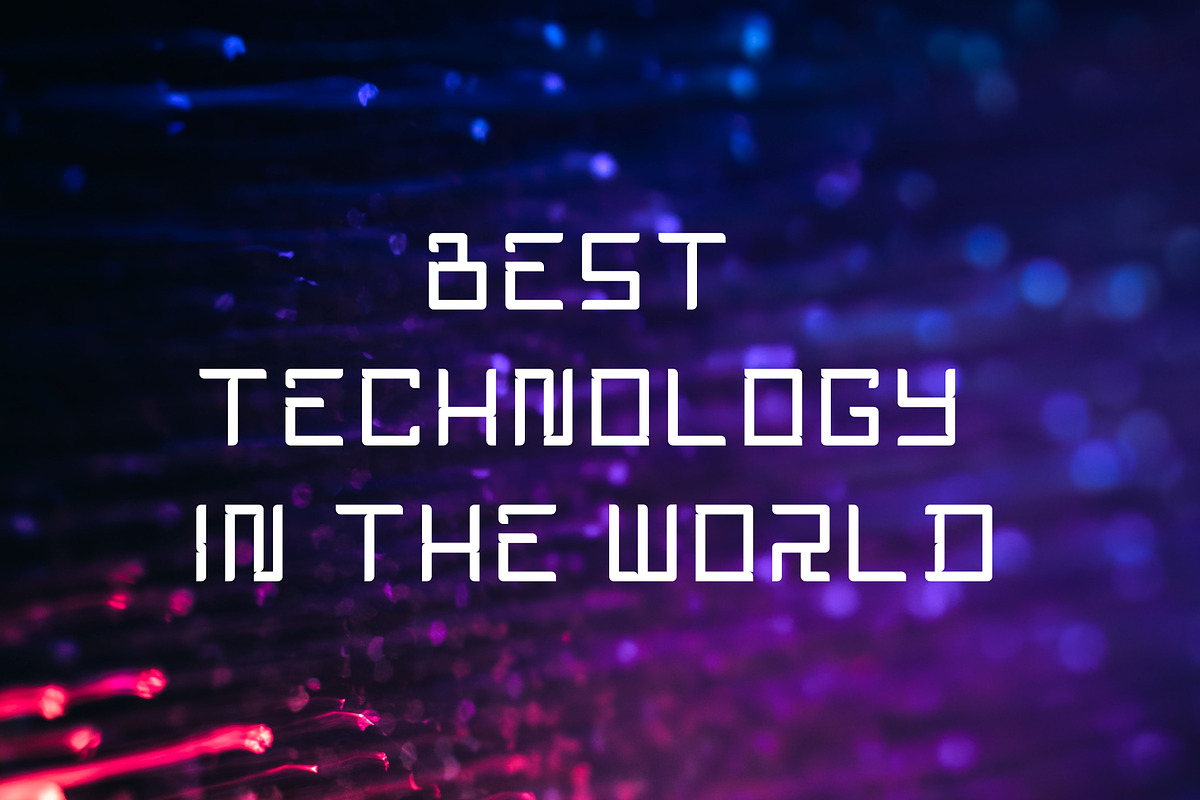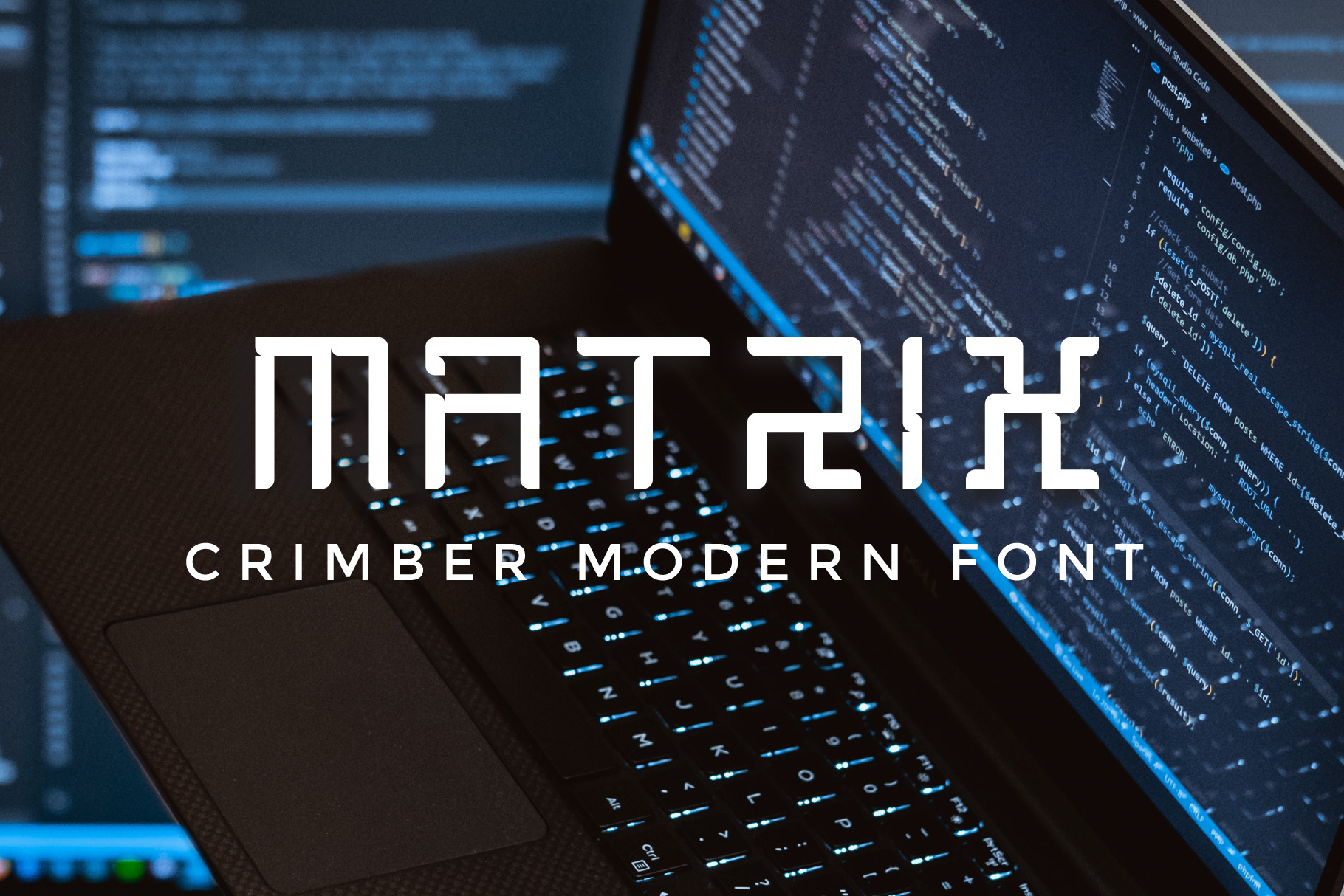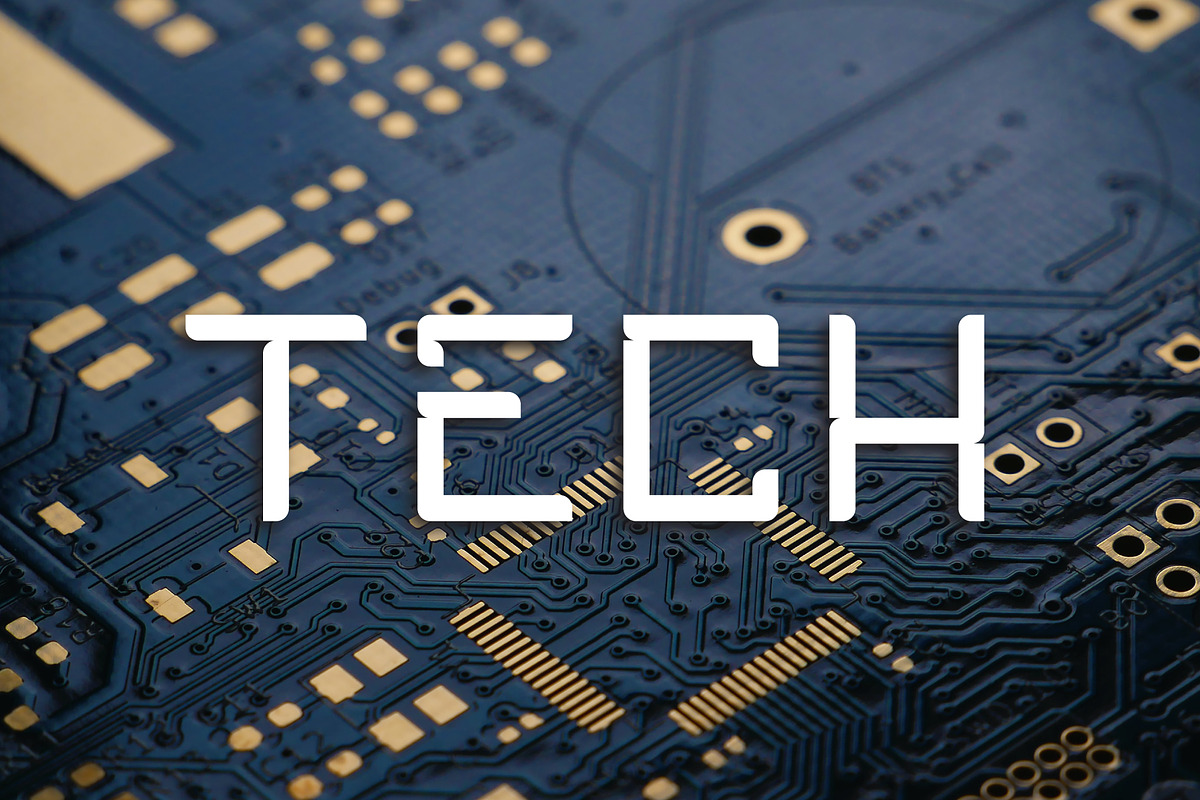
Matrix Font - Technology & Modern
Proud to introduce a new font: MATRIX. This font comes with a modern style (Regular). You can see in the preview above.
Matrix Fonts will be perfect for a variety of projects such as logos & branding, invitations, posters, flyers, wedding designs, social media posts, advertisements, product packaging, product designs, labels, photography, watermarks, special events or movie poster titles, like what I do in the preview above.